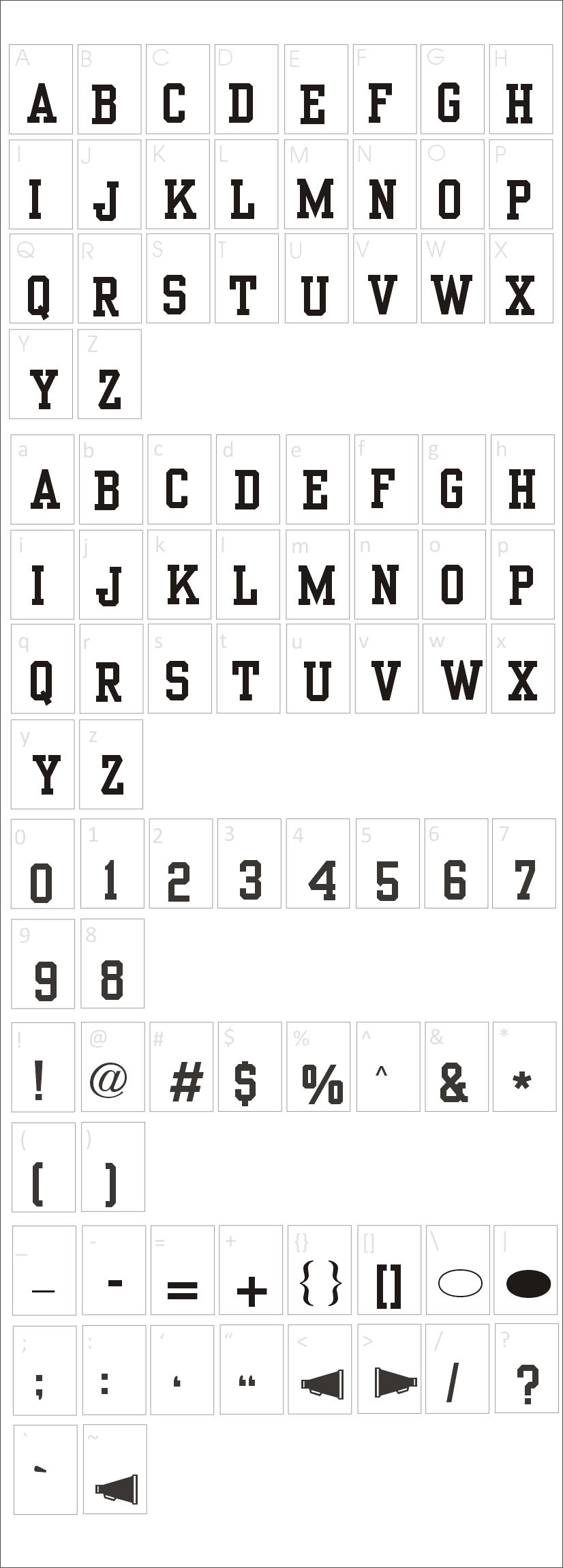
| Name | Yearbook Solid Font |
| Font Designer: | – |
| Category: | Display, Block, Retro |
Yearbook Solid is a versatile font family known for its bold, geometric shapes, and classic appearance. It’s often used in yearbooks and other educational materials, but it can also be applied to a variety of other projects.
Key Features of Yearbook Solid Font Family:
- Bold and Geometric: This font letterforms are based on geometric shapes creating a strong and consistent visual impact.
- Classic Appearance: The font’s timeless design makes it suitable for a wide range of projects, from traditional to modern.
- Excellent Legibility: Yearbook Solid’s clear and balanced letterforms ensure easy reading on various screen sizes and devices.
- Multiple Weight Options: The font family includes various weight options (e.g., Regular, Bold, Italic), allowing you to find the perfect style for your specific needs.
Ideal Uses for Yearbook Solid Font Family:
- Yearbooks: This font is the obvious choice for yearbooks, but it can also be used for other educational materials like school newspapers or graduation programs.
- Branding: Use this font for logos, business cards, and other branding materials to create a classic and professional identity.
- Print Design: Incorporate this font into brochures, flyers, and other print materials to add a touch of tradition and sophistication.
- Web Design: Use this font for headlines, buttons, and other typographic elements to enhance your website’s visual appeal.